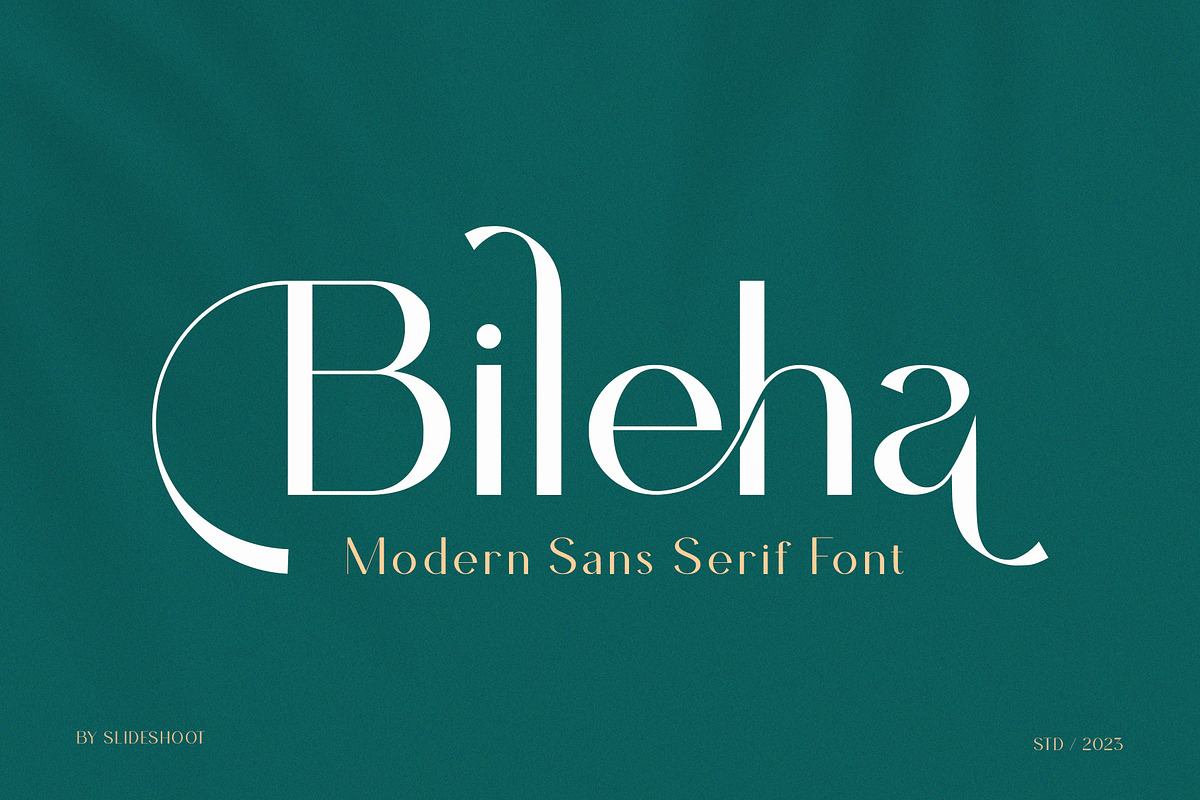
Bileha Modern Sans Serif Font Free Download
Please note, to use this font for commercial purposes, you must purchase the full version. Bileha is a sleek and contemporary sans-serif font that offers a clean, minimalist design with a modern twist. Perfect for branding, logos, websites, and editorial designs, Bileha brings clarity and sophistication to any project. Its geometric shapes and smooth lines make it versatile and easy to use for both print and digital applications. Test it out and enjoy free download access for personal use. Experience the modern elegance of Bileha Modern Sans Serif Font Free Download before purchasing the commercial license. Enhance your designs with the timeless, modern appeal of Bileha.